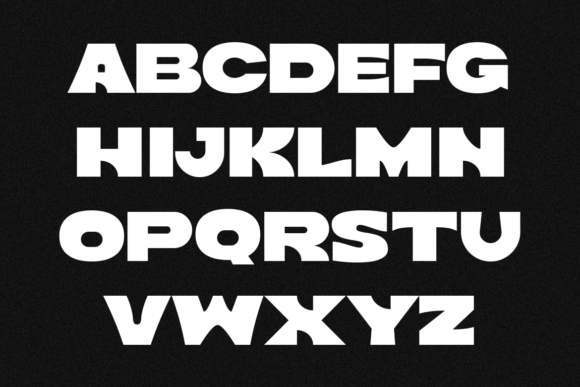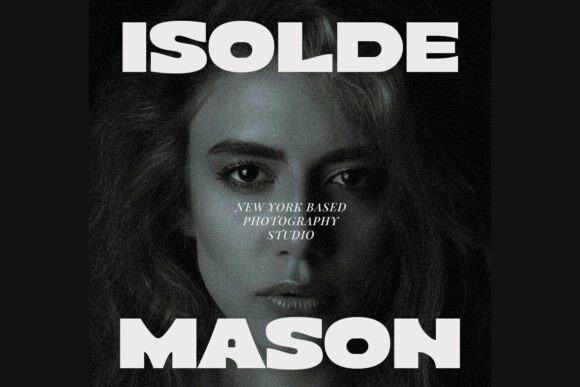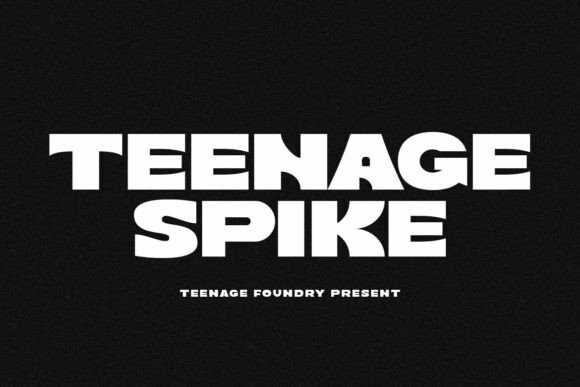
Teenage Spike Font
Teenage Spike Font is a bold and modern sans serif font that is perfect for headlines and titles. Its unique shape and contemporary aesthetic make it stand out from the crowd, allowing designers to create stunning designs that leave a lasting impression.